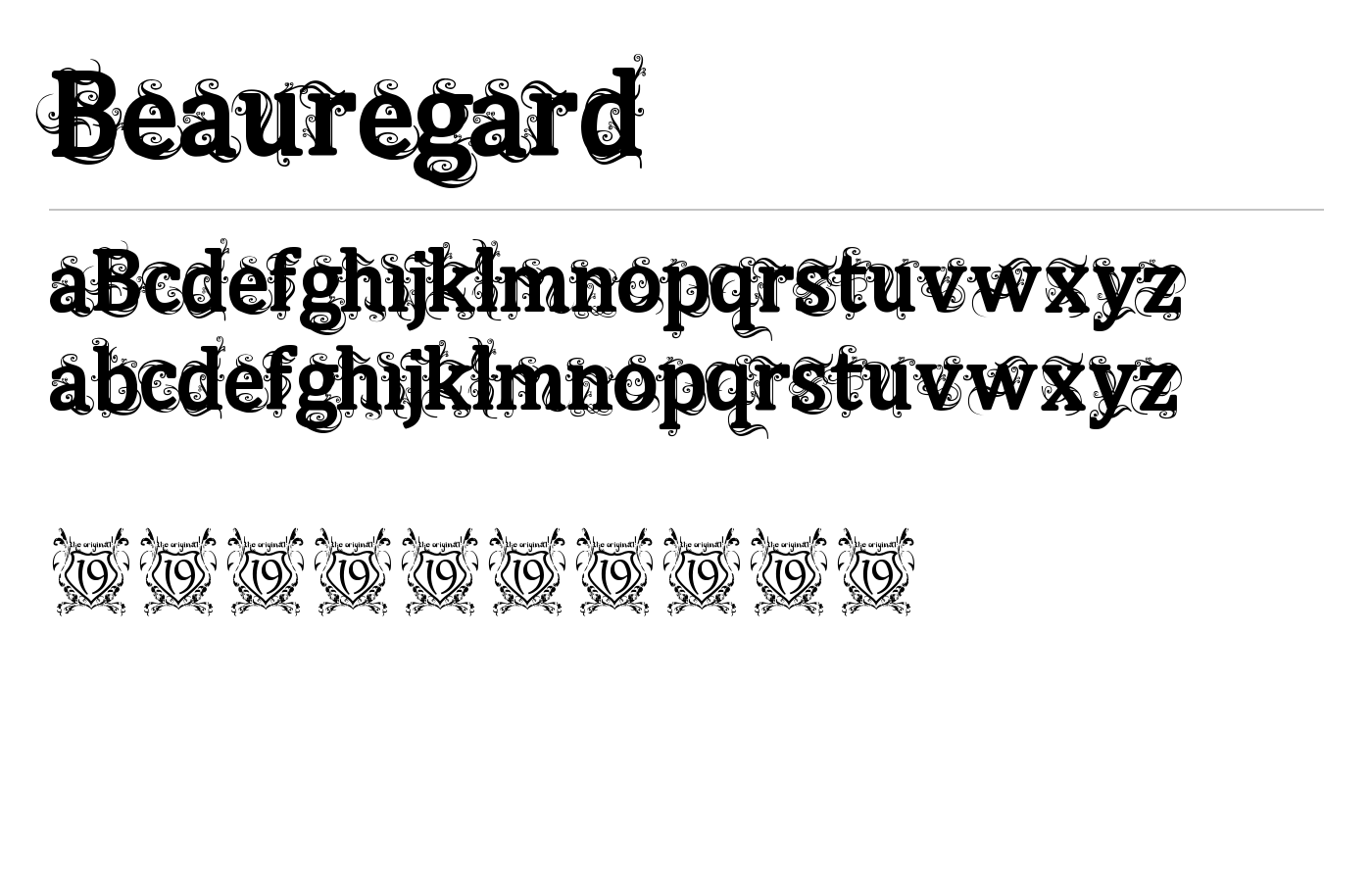
Beauregard is a decorative serif font combining bold, strong letterforms with intricate, swirling flourishes that create a vintage and ornate look. Its high contrast and heavy weight make it ideal for attention-grabbing headlines, logos, and branding that seek a timeless, elegant, and slightly playful personality. This font works best in creative projects where unique style and decorative impact are desired, such as invitations, posters, and luxury packaging.
Beauregard Font
About Beauregard Font